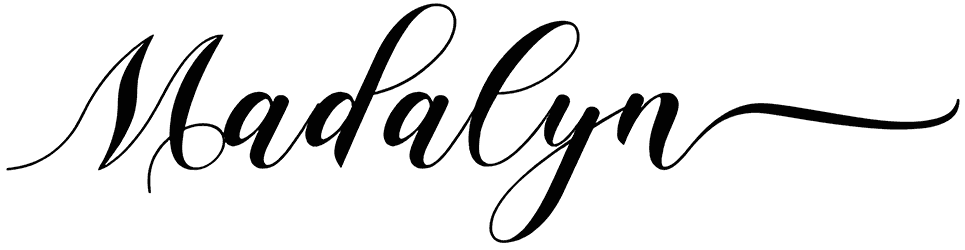
Madalyn Font
Give a stylish and stunning visual to your design with this calligraphy font and mesmerize your viewers. The Madalyn font’s letters have a noble and ravishing face, and you can count on it to make your design level up. Benefit from this postcard font to adorn your Valentine’s Day event invitation flyer and capture a lot of attention.